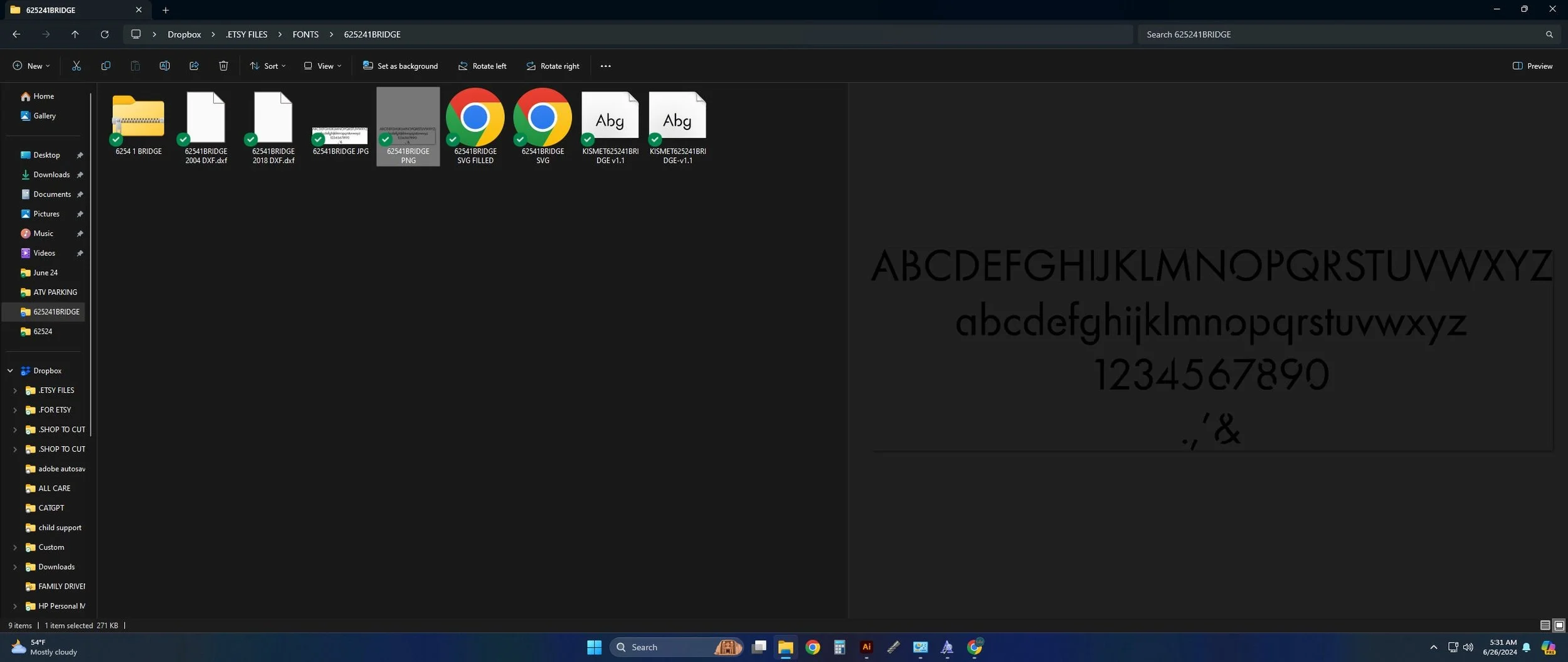
Introducing out newest font dxf font files for cnc, a unique font ttf digital download. This stencil font dxf file for cnc plasma, stencil letters svg files for cricut file bundle includes svg jpg png and dxf files for a full collection of file formats to suit your needs. This file bundle features versatile files that are perfect for metal cutting on your cnc plasma machine and feature clean lines, minimal nodes and have been sheetcam tested for tolerances.
These digital files are meticulously designed with a .06" kerf compensation, tailored for the fine cut tolerances of the Hypertherm plasma cutter, ensuring clean, precise cuts and enhancing the beauty and detail of your projects. Kerf refers to the material removed during the cutting process. By precisely accounting for this in our designs, we guarantee that details are preserved, particularly on thinner metals and at larger sizes. The larger the design, the more effectively it compensates for kerf, making your projects come together perfectly.
Hand drawn in Adobe Illustrator